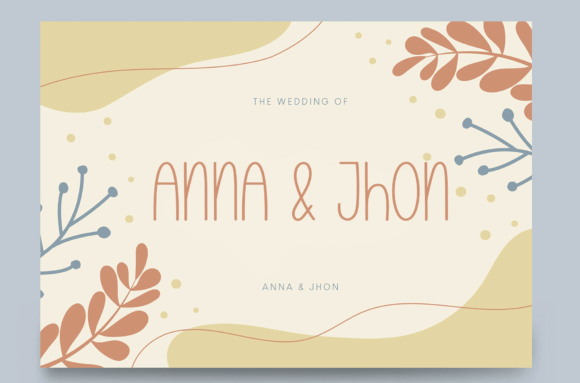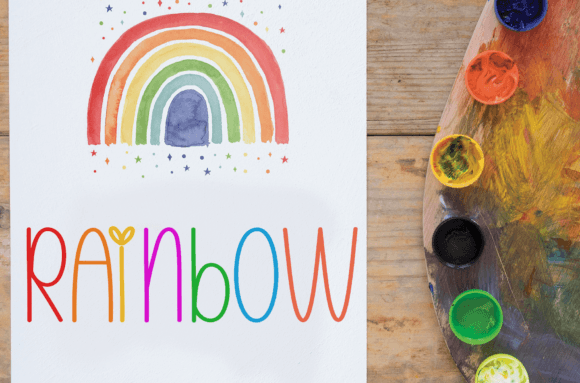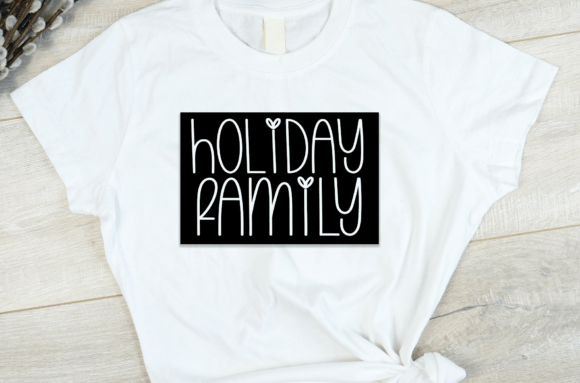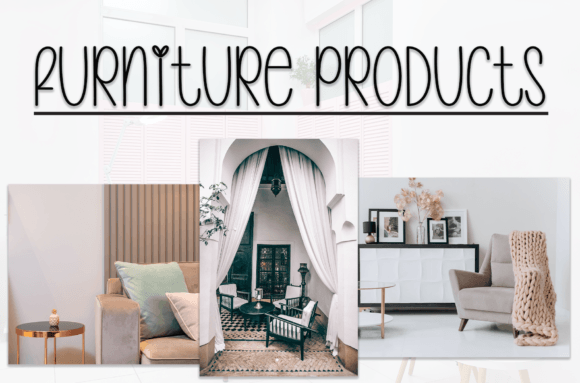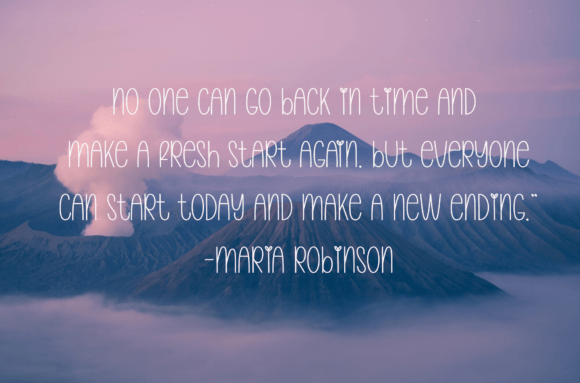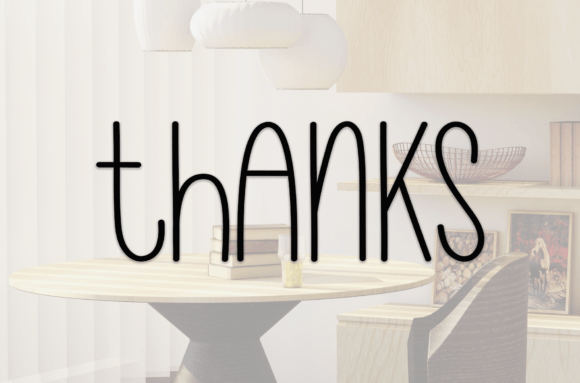
The Sweet Charm of Displayhome Font: A Designer’s Delight
I’ll never forget the time I was working on a wedding invitation project, and my client asked for a font that was “fun, yet elegant.” I scoured the internet, tried out a dozen fonts, but nothing seemed quite right. That was until I stumbled upon Displayhome Font. This sweet and friendly handwritten display font has been a game-changer for me, and I’m excited to share its charm with you! 😊
Displayhome Font has won my heart with its cute and fun design. Here are a few things I love about it:
- ✨ Sweet and Friendly Vibe: Displayhome exudes warmth and approachability, making it perfect for wedding invitations, birthday cards, or any design that needs a personal touch.
- ✅ Elegant yet Playful: This font strikes the perfect balance between sophistication and playfulness, making it suitable for a wide range of design projects.
- 💕 Emotional Connection: Displayhome has a way of evoking emotions and creating a connection with the reader, which is essential for designs that aim to resonate with the audience.
While Displayhome is an excellent font, it’s not without its quirks:
- 🤔 Limited Use in Small Sizes: Displayhome is best used in larger sizes (30px and above) to maintain its elegance and readability. Using it in smaller sizes might make it appear blurry or loss its charm.
- ⚠️ Occasional Kerning Issues: Like many fonts, Displayhome may require manual kerning adjustments to ensure optimal spacing between letters.
The Story Behind Displayhome Font
Displayhome Font was designed with love and care by a talented type designer who aimed to create a font that would bring joy and warmth to designs. Inspired by traditional handwritten scripts and modern digital fonts, Displayhome is a unique blend of elegance and playfulness.
| What is Displayhome Font best used for? | Displayhome Font is ideal for designs that require a personal touch, such as wedding invitations, birthday cards, and other creative projects. |
| Is Displayhome Font suitable for body text? | No, Displayhome Font is best used as a display font for headings and titles. Its elegance and readability are best appreciated in larger sizes. |
| Does Displayhome Font support OpenType features? | Yes, Displayhome Font supports OpenType features, such as ligatures and stylistic alternates, which can add more flair to your designs. |